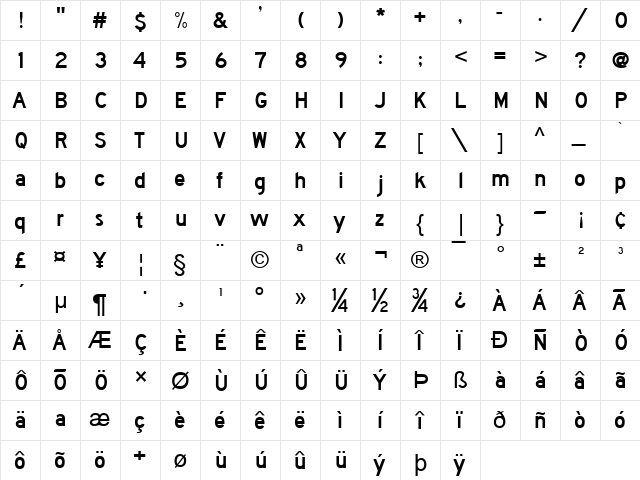
Roadgeek 2000 Series D kerned Regular
Design Context for Roadgeek 2000 Series D kerned Typeface
Roadgeek 2000 Series D kerned offers clean, dependable letterforms without strong stylistic allegiance, making it a practical choice for designers who need flexibility.
Pro Tip: Use Roadgeek 2000 Series D kerned in both headline and body roles to test its range before committing to a single application.